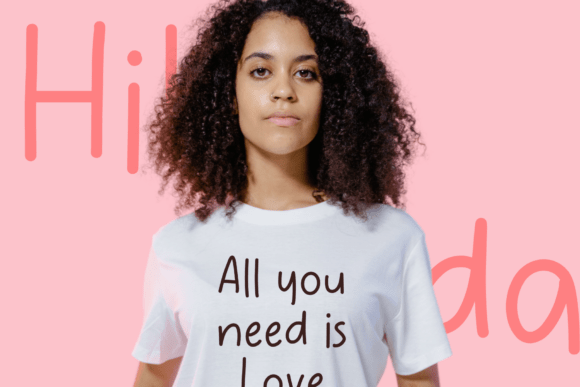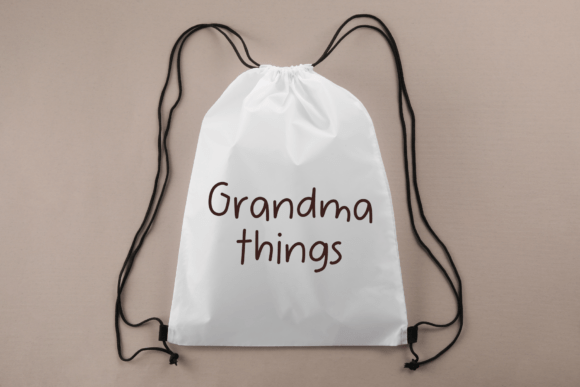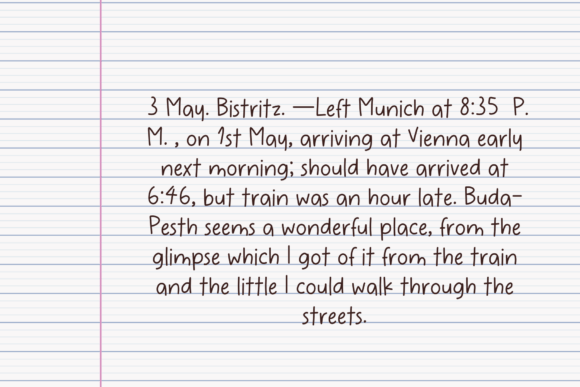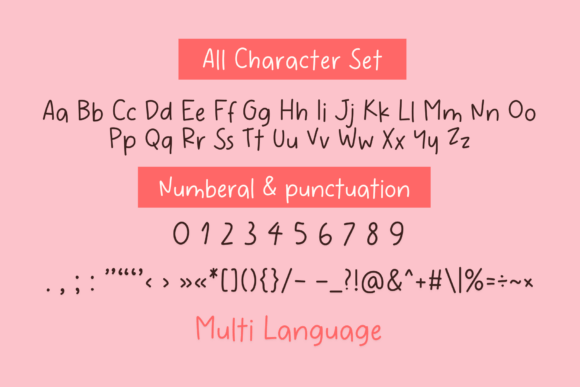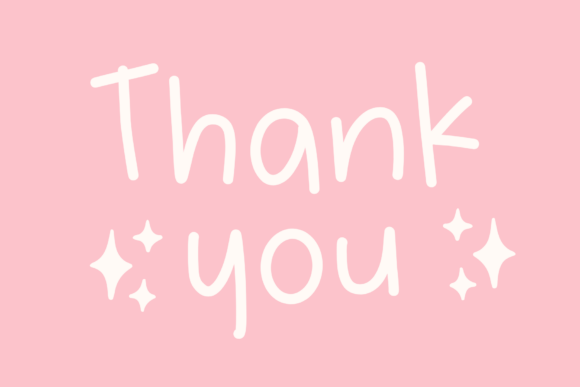
Introducing Dear Diary Font: The Ultimate Handwritten Font for Creative Projects
Are you tired of using the same old fonts for your designs? Do you want to add a touch of playfulness and authenticity to your projects? Look no further than Dear Diary Font, a beautiful handwritten font that’s perfect for a wide range of creative endeavors. In this article, we’ll explore the features and benefits of Dear Diary Font, and show you how to make the most of this versatile and charming font.
What is Dear Diary Font?
Dear Diary Font is a carefully crafted handwritten font that embodies the spirit of playfulness and authenticity. Its unique and charming design makes it the perfect choice for a variety of projects, from blog posts and logos to branding, ads, invitations, greeting cards, planners, photo albums, decorations, and more.
Key Features of Dear Diary Font
- Handwritten design: Dear Diary Font is a genuine handwritten font, created to bring a personal touch to your designs.
- Playful and authentic: The font’s playful and authentic design makes it perfect for creative projects that require a touch of personality.
- Versatile: Dear Diary Font can be used for a wide range of projects, from digital designs to print materials.
- Easily readable: The font is clear and easy to read, making it perfect for body text and headlines.
Uses for Dear Diary Font
Dear Diary Font is an incredibly versatile font that can be used for a wide range of creative projects. Here are some ideas to get you started:
- Blog posts: Add a personal touch to your blog posts with Dear Diary Font, perfect for lifestyle, fashion, and beauty bloggers.
- Logos and branding: Create a unique and memorable logo for your brand with Dear Diary Font.
- Ads and marketing materials: Use Dear Diary Font to create eye-catching ads and marketing materials that stand out from the crowd.
- Invitations and greeting cards: Create beautiful and personalized invitations and greeting cards with Dear Diary Font.
- Planners and journals: Add a touch of personality to your planners and journals with Dear Diary Font.
- Photo albums and scrapbooking: Use Dear Diary Font to create beautiful and personalized photo albums and scrapbooking projects.
- Decorations: Add a personal touch to your home decorations with Dear Diary Font, perfect for wall art, signs, and more.
Tips for Using Dear Diary Font
Here are some tips for getting the most out of Dear Diary Font:
- Experiment with different colors: Dear Diary Font looks great in a variety of colors, so don’t be afraid to experiment and find the perfect hue for your project.
- Mix and match with other fonts: Combine Dear Diary Font with other fonts to create a unique and visually appealing design.
- Use it for headings and body text: Dear Diary Font is clear and easy to read, making it perfect for both headings and body text.
- Add a personal touch: Use Dear Diary Font to add a personal touch to your designs, whether it’s a handwritten note or a personalized message.
Dear Diary Font is a beautiful and versatile handwritten font that’s perfect for a wide range of creative projects. Its playful and authentic design makes it a great choice for designers and crafters who want to add a personal touch to their work. With its ease of use and flexibility, Dear Diary Font is sure to become a favorite in your font collection.